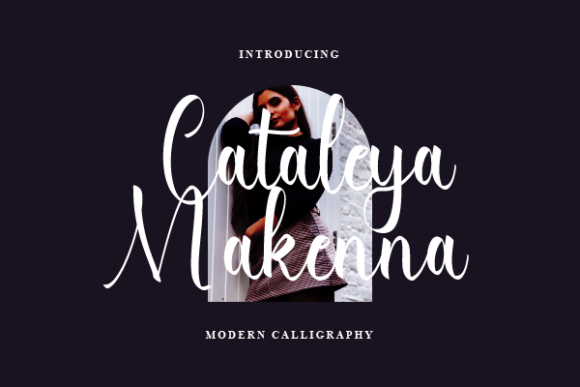
Have you ever been in a brainstorming session with your team, trying to come up with the perfect logo or brand identity, only to be stuck on the font? We’ve all been there. The struggle is real, but the solution is not. Introducing the beautiful Cataleya Makenna Font, a relaxed and cursive script font that’s perfect for any branding project.
This stunning font is versatile and can be used in a variety of contexts, from logos and t-shirt printing to creative products and more. Whether you’re a seasoned designer or just starting out, Cataleya Makenna Font is a valuable addition to your toolkit. Its unique style and character make it stand out from the crowd, and its ease of use makes it a breeze to implement.
- Unique Characteristics: This font features a unique blend of modern and elegant design elements, making it suitable for a wide range of applications, from branding and advertising to publishing and digital media.
Cataleya Makenna Font Review
I’ve had the chance to work with the Cataleya Makenna font, and I must say it’s a unique addition to any design project. ✨ The font’s elegant and feminine style is perfect for creating a luxurious or vintage aesthetic. It’s also highly versatile, suitable for both digital and print applications.
Here are some of the things I like about Cataleya Makenna:
- ✨ Elegant and refined feel, perfect for high-end designs
- ✨ Highly customizable, with a range of weights and styles to choose from
- ✨ Suitable for both digital and print applications
- ✨ Supports a range of languages, making it a great choice for international designs
However, I do have some reservations about the font:
- ⚠️ Limited legibility in smaller font sizes, which can make it difficult to read
- ⚠️ Not ideal for body text, as it can be overwhelming and visually busy
Overall, I think the Cataleya Makenna font is a great choice for designers who want to add a touch of elegance and sophistication to their projects. While it may have some limitations, its unique style and versatility make it a valuable addition to any design toolkit.
For the best results, use the Cataleya Makenna Font for headings and titles, as it is a bold and elegant font.
The Cataleya Makenna Font is ideal for:
2. Branding and marketing materials.
3. Luxury and high-end designs.
4. Any design where a bold and elegant font is required.
Q: Is Cataleya Makenna a web-friendly font?